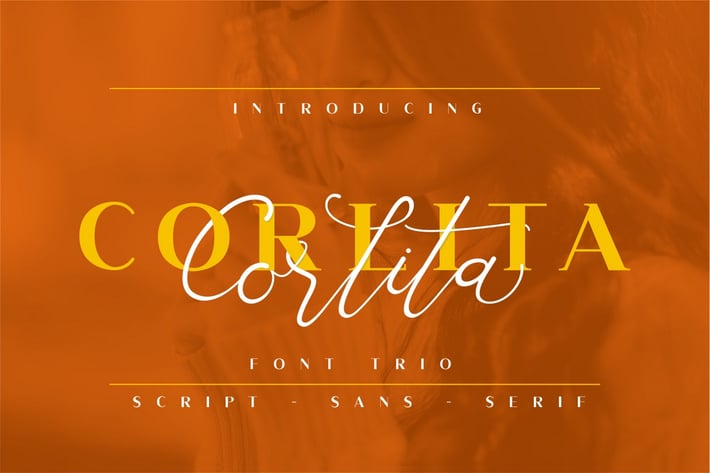
Corlita - Font Trio
CORLITA - Font Trio
CORLITA is a beautiful and modern font trio (sans ,serif and script ). a perfect pair, can created to mix together.
CORLITA perfect for branding, wedding invite and card, elegant logo, poster, packaging, stationery, website, and many more.
Come with open type feature with a lot of alternates, its help you to make great lettering.
This font is also support multi language.
Comes with feature :
Alternate
Number, Punctuation And Symbols
Multilanguage Support.